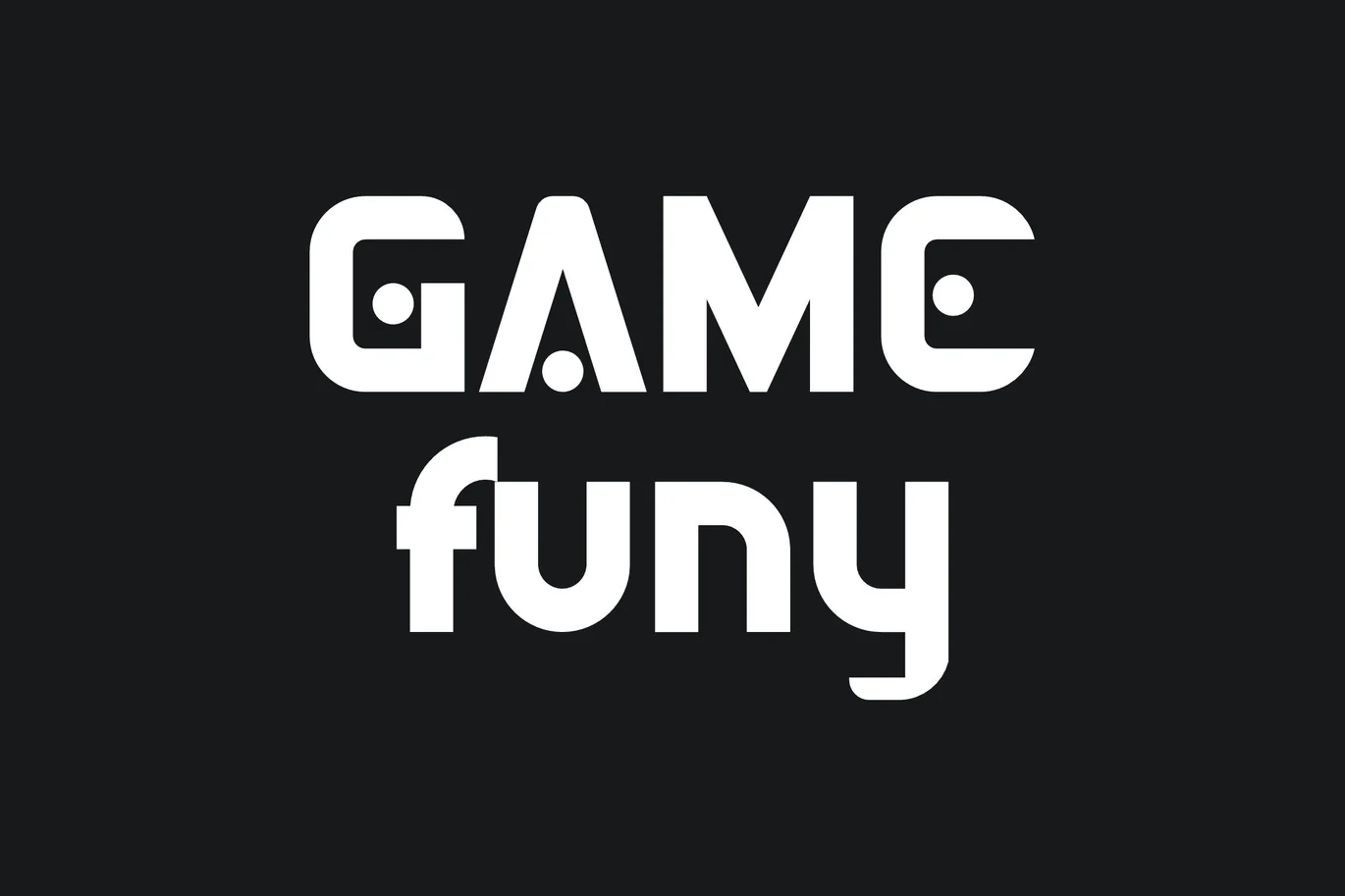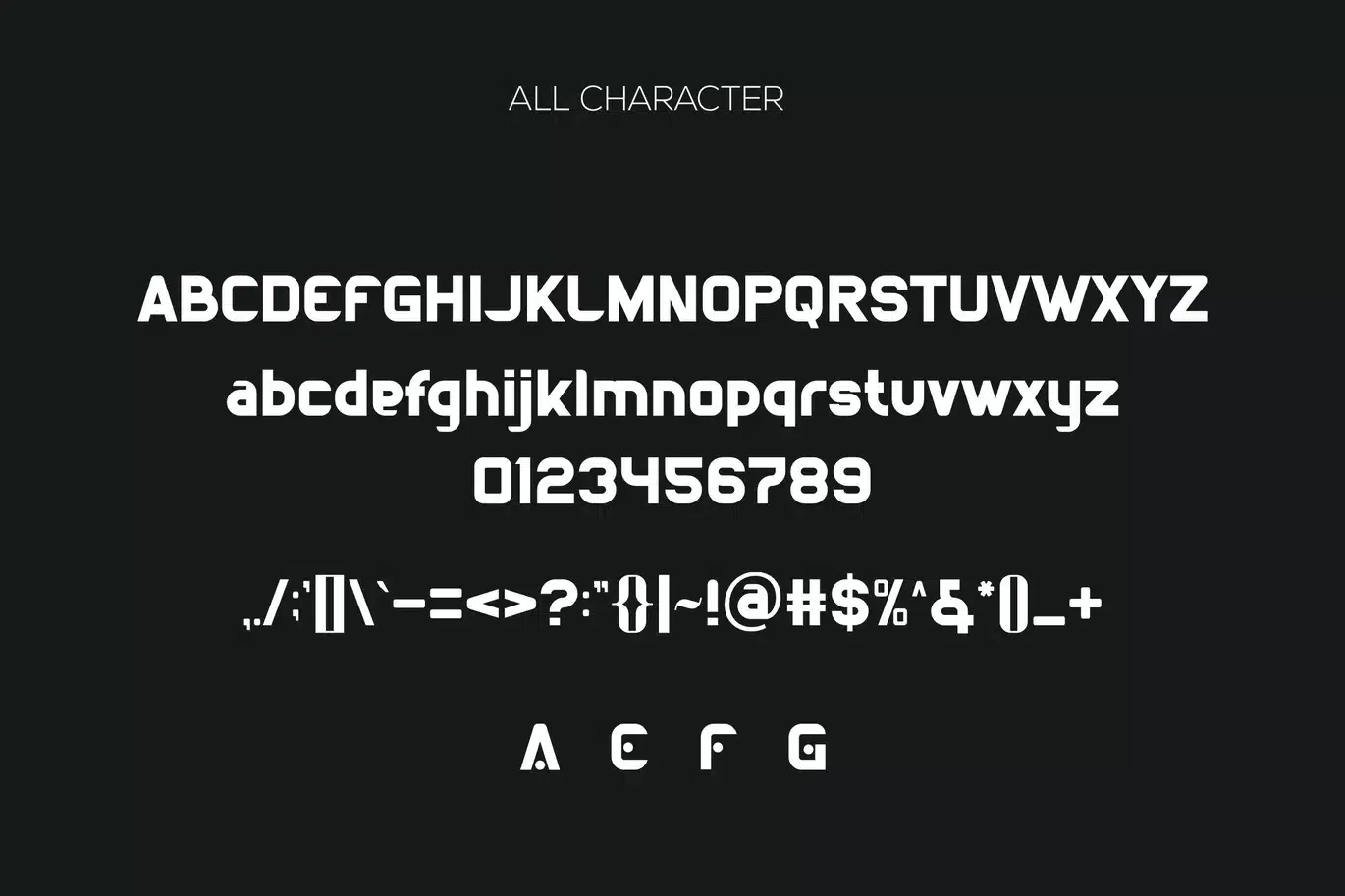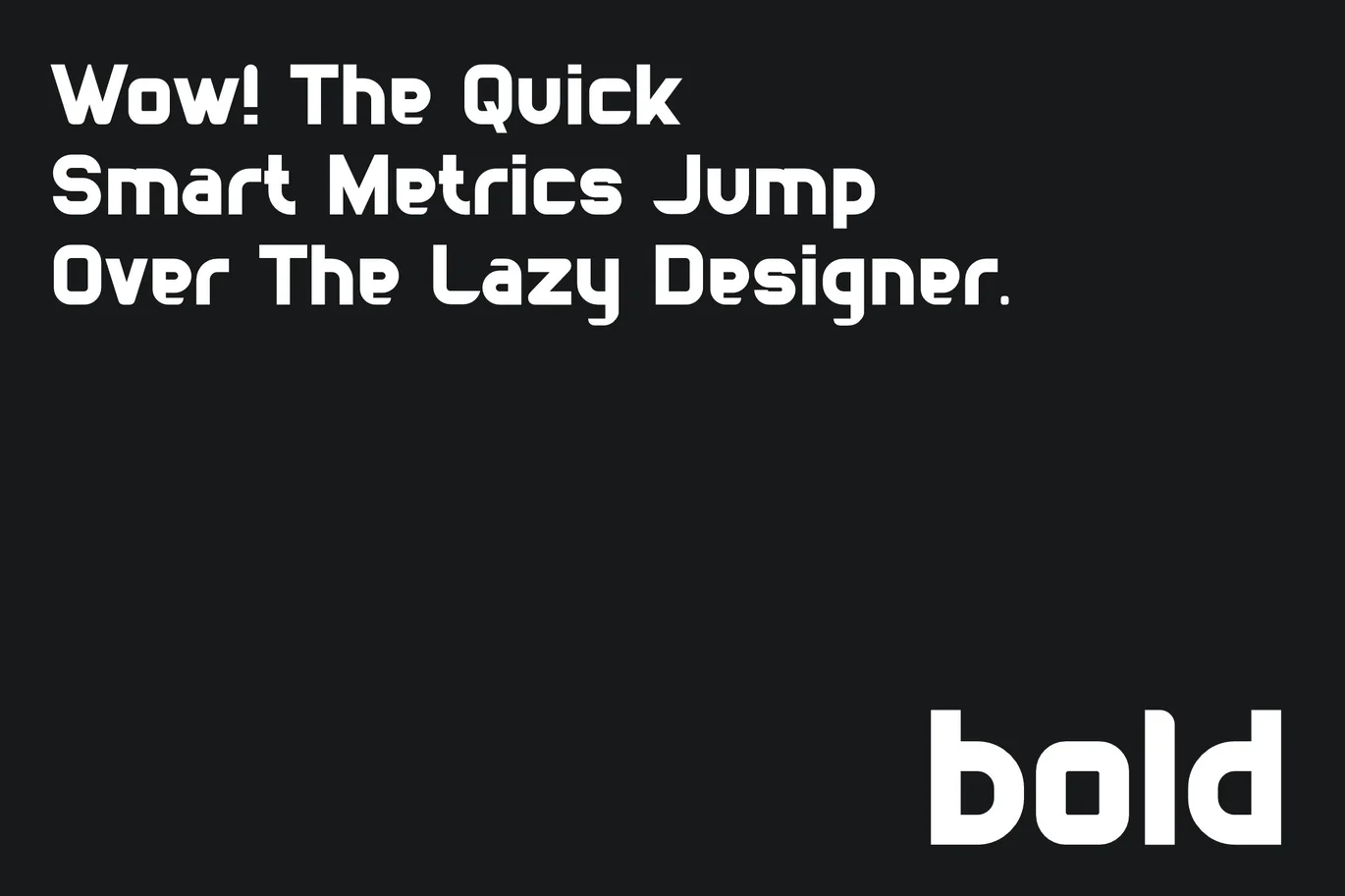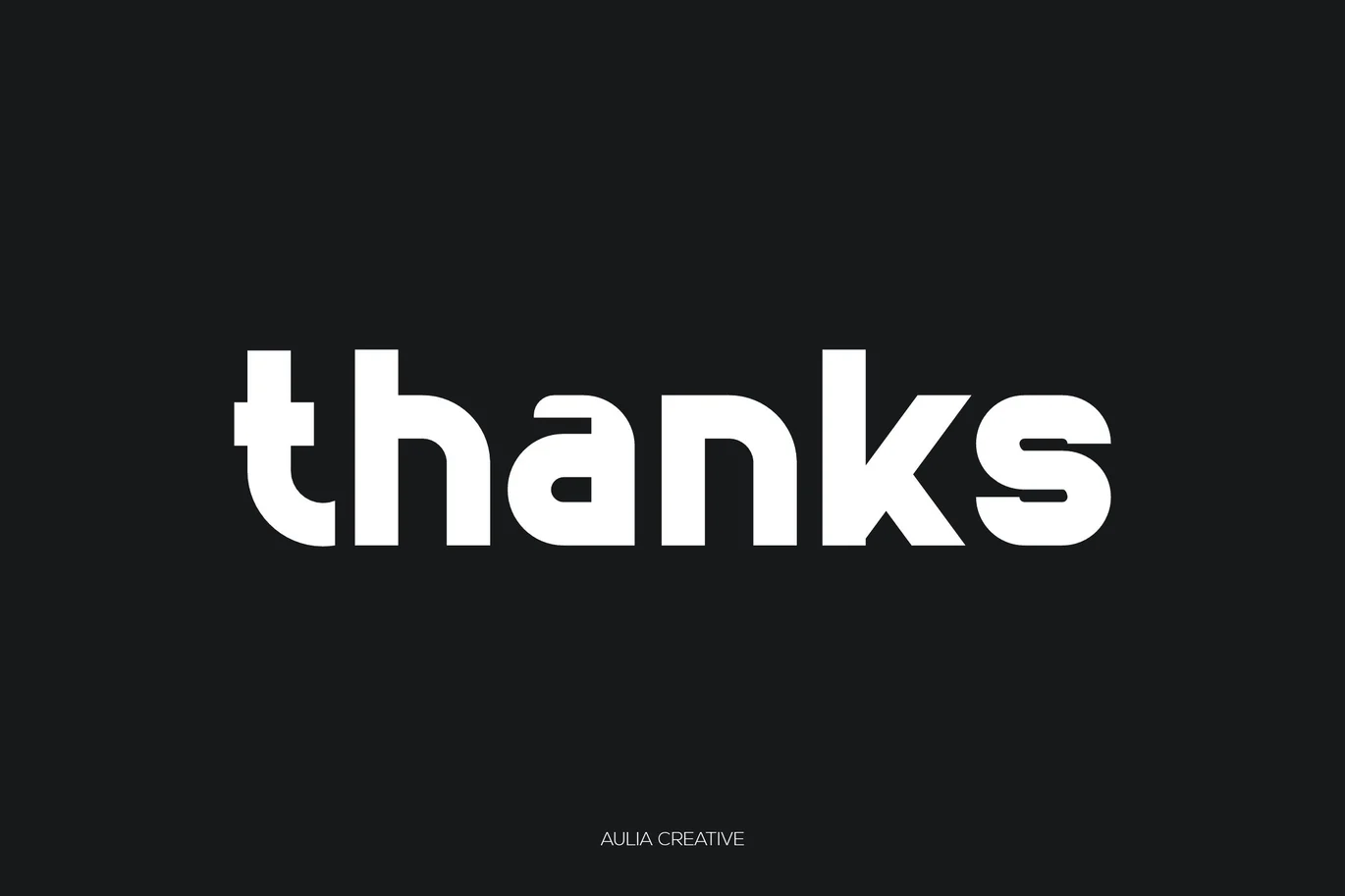
Gavetu – Sans uniqe Logo Font
Introducing our new product Gavetu - Sans uniqe Font
Gavetu - Sans uniqe Font is and awesome and authentic display font.
- Number & Symbol
- UPPERCASE, lowercase
- Alternative